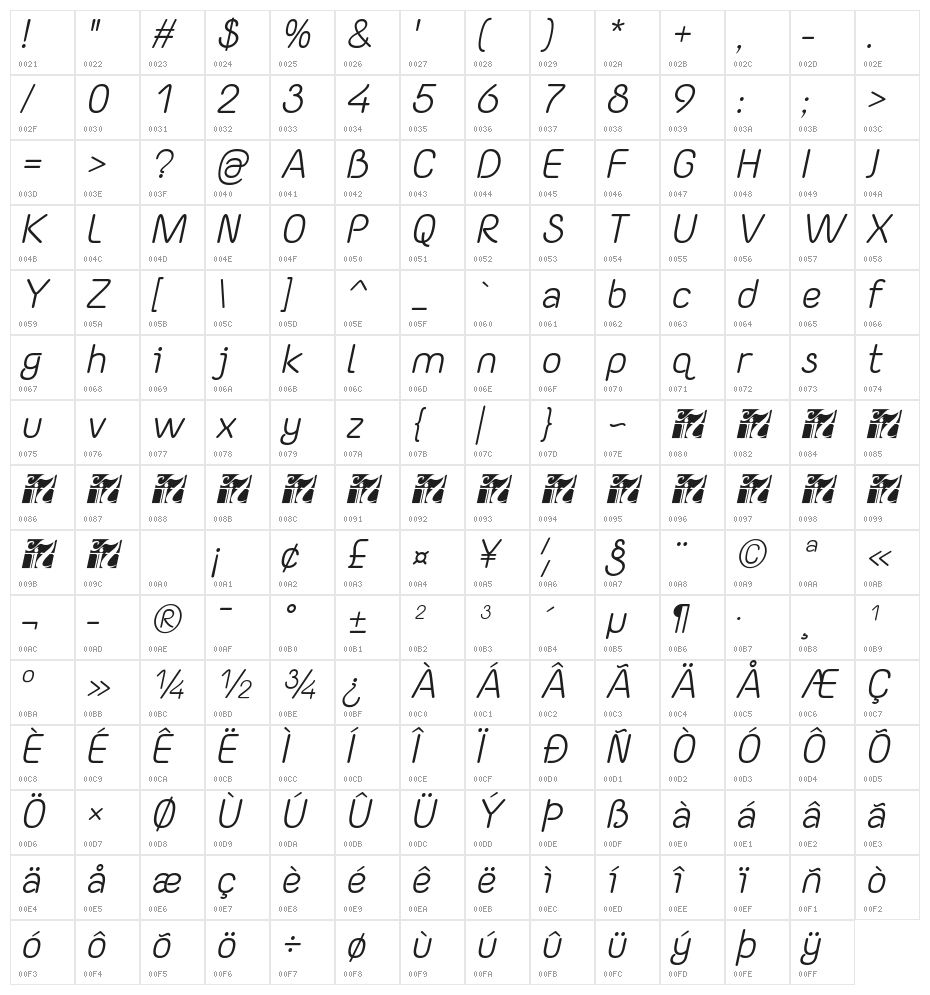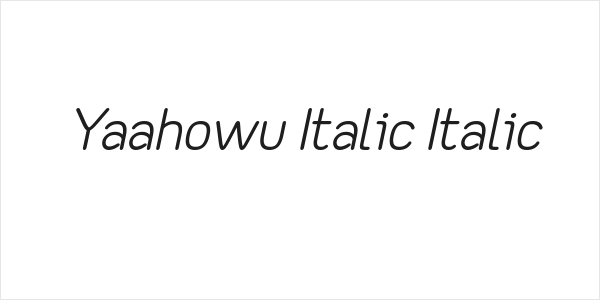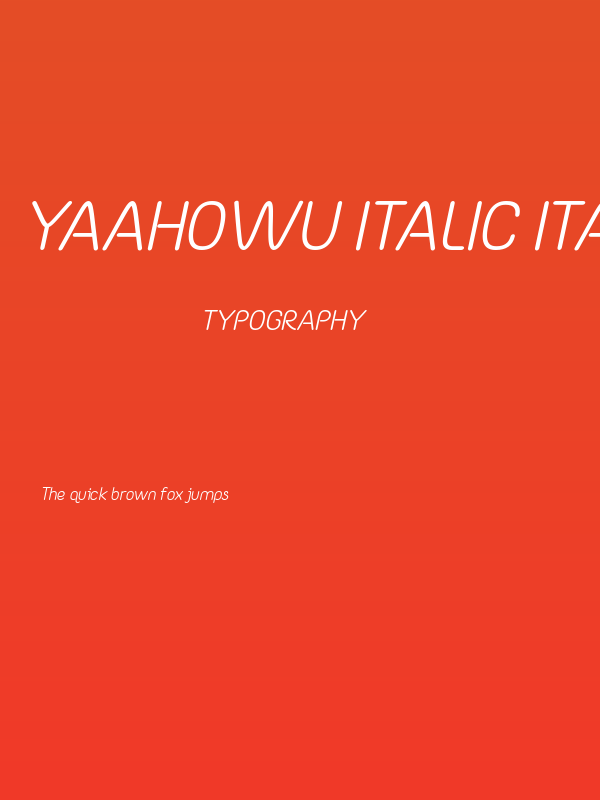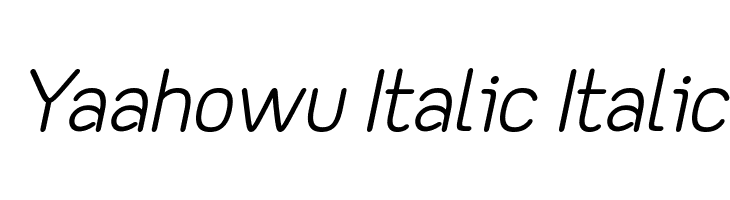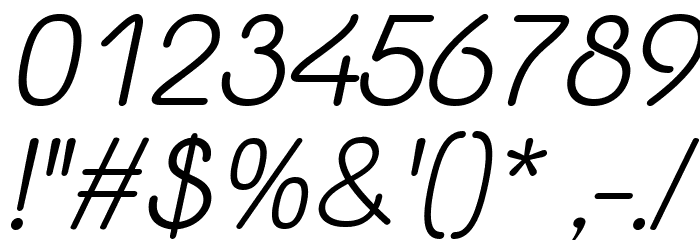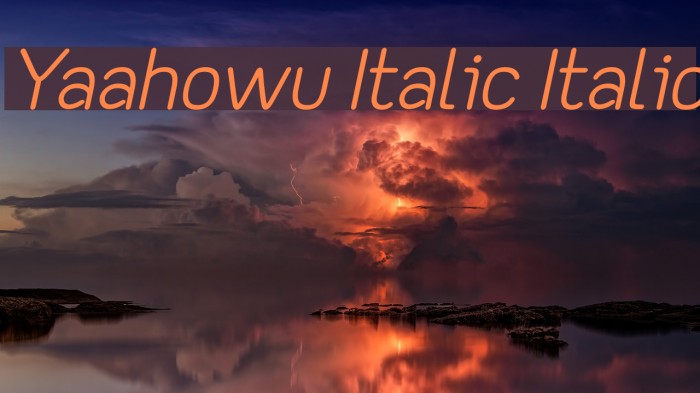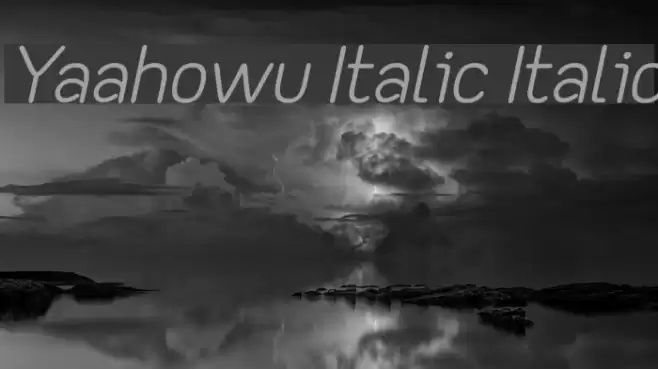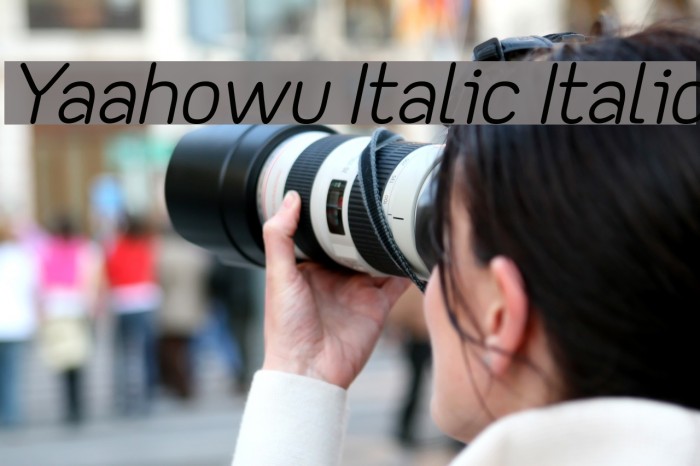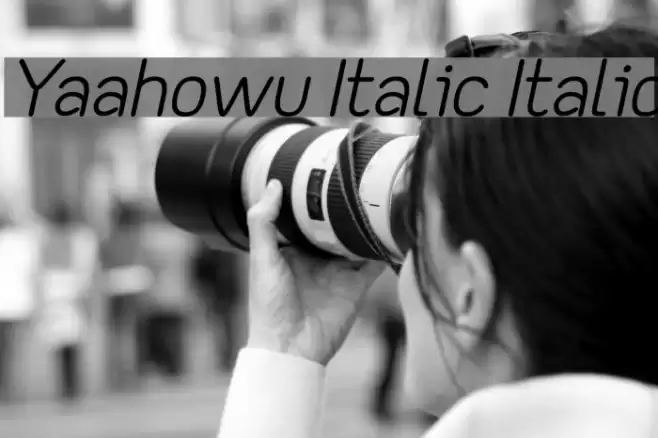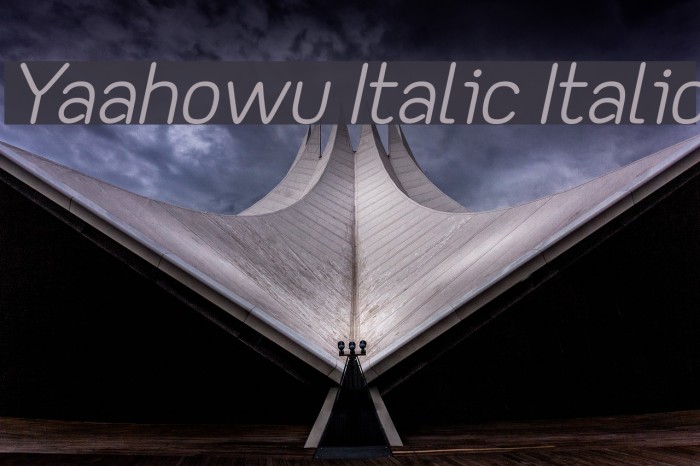
Yaahowu Italic Italic Font
Yaahowu Italic Italic Description
This font exhibits a sleek, modern style with a distinct italic slant, giving it a dynamic and forward-moving appearance. The characters are rounded and smooth, contributing to a friendly and approachable aesthetic. The uniform stroke width maintains a consistent look throughout, while the slight curvature in letters like 'Q' and 'J' adds a touch of uniqueness. The numerals are clear and legible, matching the overall style of the alphabet. Special characters are well-integrated, maintaining the font's cohesive design. This font is versatile, suitable for various applications where a contemporary and informal tone is desired.
| Use Case | Headlines, Logos, Digital content |
| Proposed Projects | Ideal for branding, advertising, and digital content where a modern and approachable style is needed. |